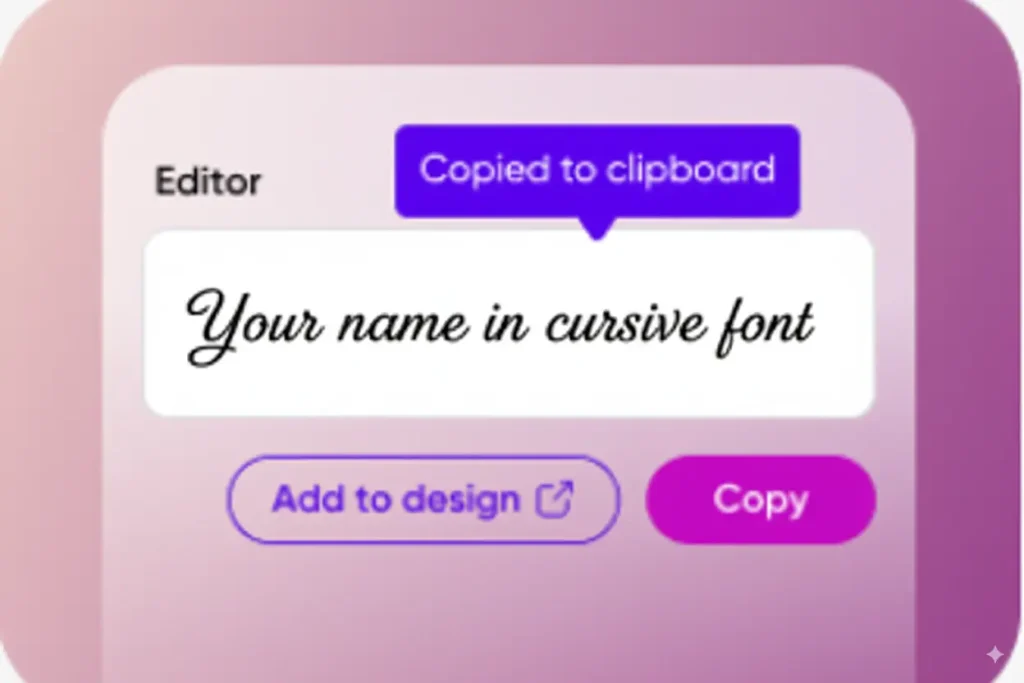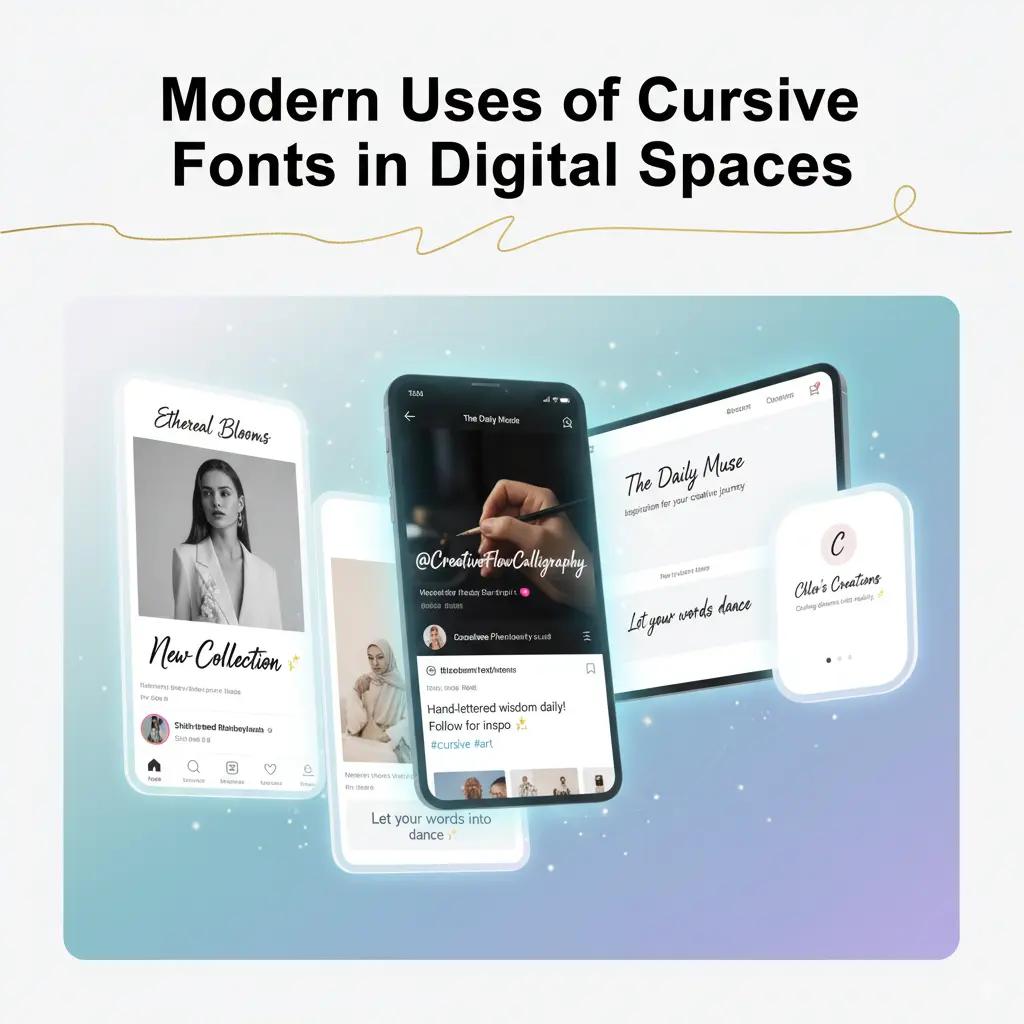
Cursive Font Generator – Copy and Paste Stylish Letters
Cursive Font Generator
Ever typed something online and felt like it just blends in? Your Instagram bio looks plain, your Facebook posts don’t pop, and even your tattoo ideas feel ordinary. In today’s world, everyone wants to be noticed, and plain text often looks boring. A cursive font generator helps you fix that. With one click, you can change normal words into stylish, handwritten letters that instantly look more attractive. No design skills, no complicated tools. Just type, copy, and paste. Finally, you’ll have text that matches your personality, whether you want something classy, bold, fun, or cute.
In this guide, you’ll discover everything about cursive text, what it is, how to generate it, and where you can use it.From free fancy fonts to handwritten-design scripts, bold designs, and copy-paste hacks for Instagram, we’ll cover it all. You’ll also see the best places to apply cursive fonts, how they add elegance to your digital presence, and how this tool solves the exact problem of boring, standard text.
What is Cursive Text?
Cursive started as a fast way to write by hand. Long ago, people wrote letters joined together. That made writing quicker and smoother. The earliest forms came from Roman cursive around 1st century AD. Over time, trends changed in Europe. By the Middle Ages, scribes used ornate scripts for books and official papers. In the 18th and 19th centuries, cursive became common in schools. People learned linked letters to write letters and keep notes.Cursive is more than old handwriting. It shows personality and flow. Each cursive theme has its own mood. Some look fancy and formal.For more decorative handwritten styles, you can also try our calligraphy font generator which creates elegant script lettering suitable for invitations and branding.
Others look loose and playful. Tattoo artists, logo designers, and brides pick cursive for its charm. Social media users choose it to make bios feel unique.
Today, digital cursive uses Unicode tricks to copy and paste cool text. Many of these styles work because of Unicode characters rather than traditional font files. If you’re curious about how this system works, read our guide on Unicode fonts explained.
Free Cursive Font Generator Online
You don’t need to pay, sign up, or download anything to make your words look fancy. The cursive font generator works right in your browser. Just type your text, pick a vibe like fancy, bold, cute, and copy it to your social media bio, blog, or digital planner.If you want more decorative text styles beyond handwriting, try our fancy text generator which includes hundreds of stylish Unicode designs.
What makes this magic happen is Unicode, a massive set of characters that looks like cursive but works everywhere. Your cursive text will look the same on Instagram, Tik-tok, Word, or Discord.For social media profiles specifically, many users combine cursive styles with our Instagram font generator to create unique bios and usernames.
The tool is easy to use, works on mobile, and you don’t need any design skills. Many generators let you preview and switch patterns instantly such as italic, bold cursive, or script. Some even offer export options like PNG or SVG for print or branding projects.
Cursive Letters and Writing Styles
Choosing the right cursive design isn’t random.it’s about matching your vibe to create a real connection. Here’s a clear breakdown, with live brand examples showing how cursive fonts bring identity and emotion:
Why these brands matter
Coca-Cola’s cursive logo has stood out since 1885. Disney’s logo feels personal and magical, just like Walt’s touch. Barbie and Nesquik shine with playful scripts that match their cheerful personas. And platforms like Instagram and Vimeo use sleek cursive to feel approachable while keeping a modern edge.
Beautiful & Elegant Cursive Fonts Copy and Paste
Plain text is fine, but let’s be honest — sometimes it just feels boring. Cursive fonts fix that in seconds. They’ve got that handwritten, flowy look that makes words feel more personal.If you’re creating tattoos, signatures, or custom artwork, you may also like our tattoo font generator for more artistic lettering styles.
It’s the reason people use them on wedding invites, Instagram bios, or even little notes they want to stand out. Put a line in elegant cursive and it suddenly has character — it sticks with you way more than regular fonts ever could.
Popular Stylish Cursive Fonts Today
Influencers and creators around the world use cursive fonts for their social medias, branding and business and etc. to make them look trendy.Many creators also combine cursive lettering with cool fonts from our cool font generator when designing usernames, captions, and social media graphics.
Inspiration from everyday life
- Luxury Brands: Cartier and Cadillac use refined cursive fonts to project timeless elegance.
- Events: Wedding planners often rely on script fonts like Allura and Great Vibes for invites.
- Social Media: Influencers use Heart-Ended Cursive or Cursive with Sparkles in bios and quote graphics to grab attention.
Why These Fonts Matter
They have this awesome old-school vibe, like getting a handwritten letter from a buddy. Even now, tons of people are into them tattoo artists in the US, wedding planners in the UK, and creators in Canada all swear by them to give their text some personality. With this tool, you can nail that stylish look in just a few seconds. Over in the US, bold Scrawl Cursive is a go-to for tattoos that really pop. In the UK, folks love elegant fonts like Allura for wedding invites that feel special. And in Canada, TikTok creators are all about playful styles like Dancing Script to spice up their Instagram game.
At the end of the day, the “best” cursive font is just the one that feels like you. Maybe clean and elegant, maybe bold and edgy. Try a few, mix it up, and see what works. That’s the fun part — your text doesn’t just sit there, it actually leaves an impression.Thanks for sticking around till the end — now go play with some cursive styles and see how your words transform.